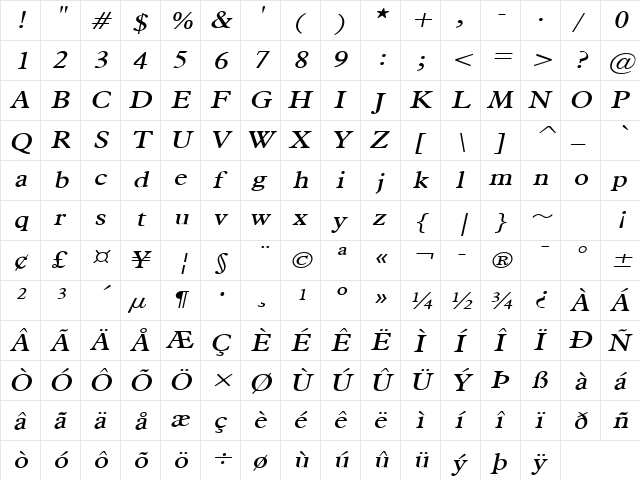
Nadine Italic Font Preview
Nadine Italic
Nadine Italic Font Details
Design Context for Nadine Typeface
Nadine takes a measured approach to typography — its balanced proportions and neutral character make it a reliable workhorse for both digital and print work. The dynamic lean of this cut emphasises speed and emphasis in any layout.
Pro Tip: Use Nadine for emphasis, pull quotes, and subheadings where its slanted energy can add rhythm to the layout.